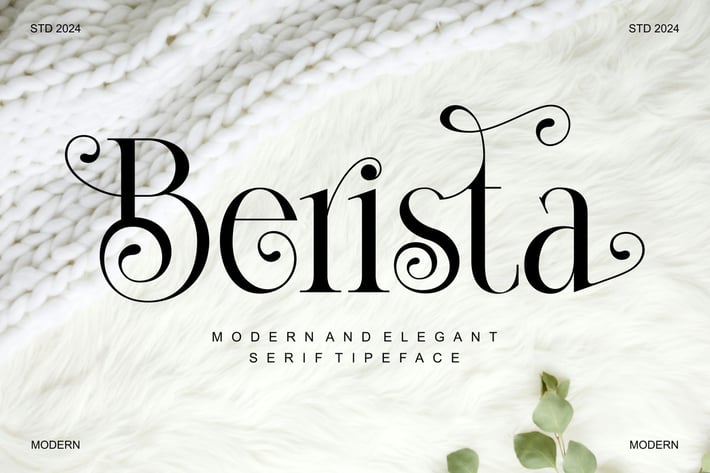
Berista Elegant Serif Typeface
Berista Modern Serif Typeface inspired by the famous minimalist logo perfect for the purposes of designing templates, brochures, videos, advertising branding, logos, invitation, layout design, elegant crafting, beauty design and other